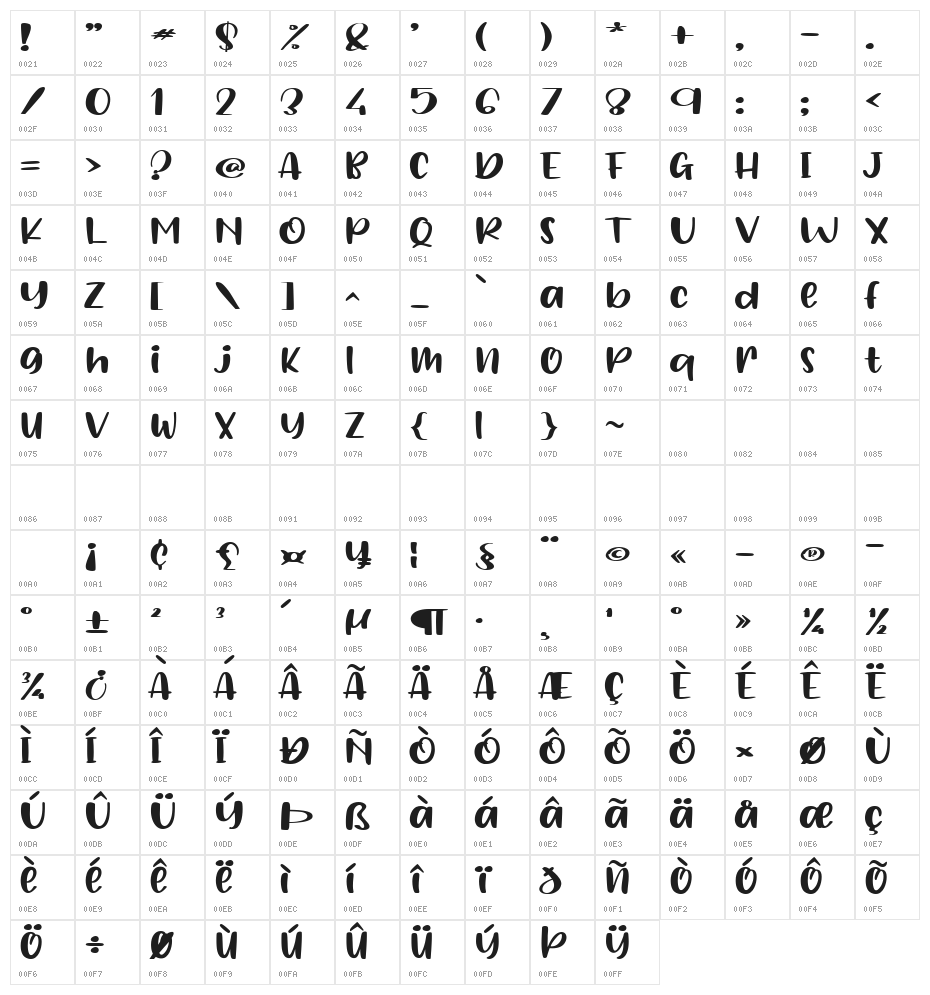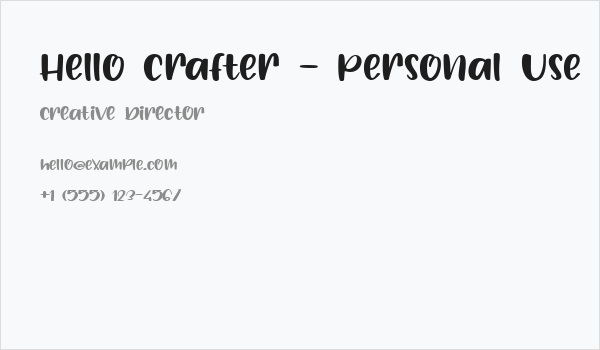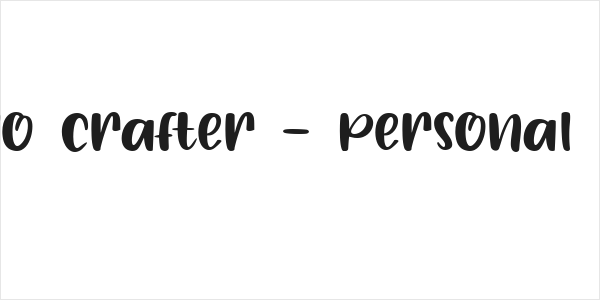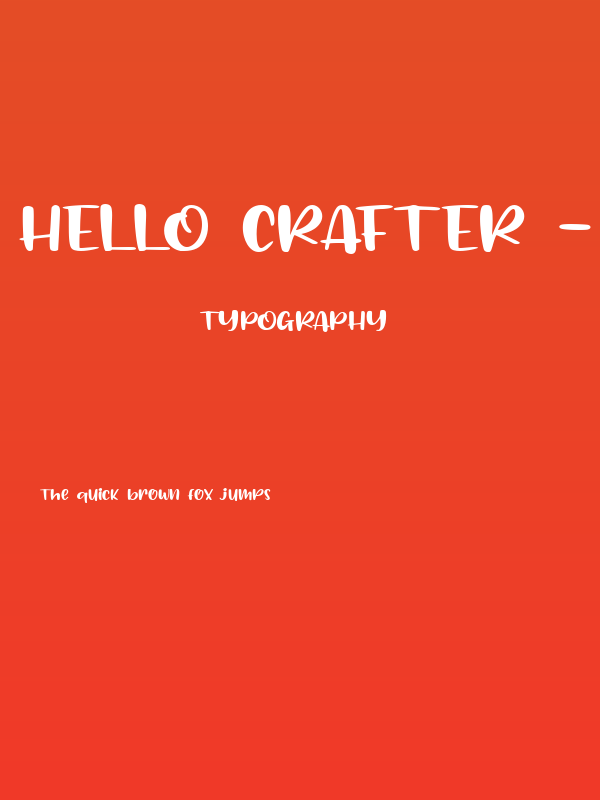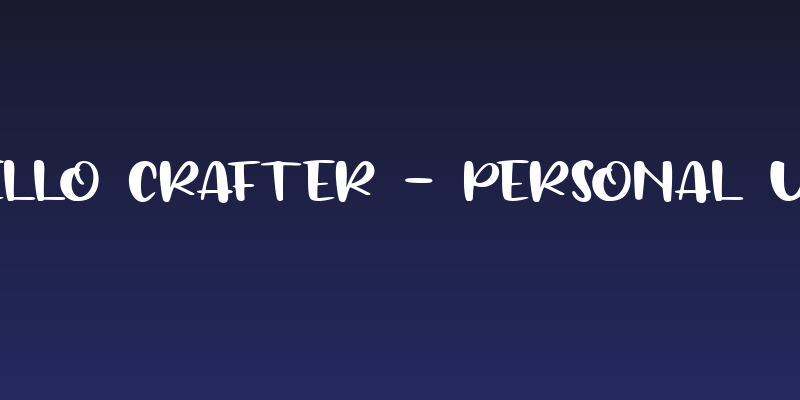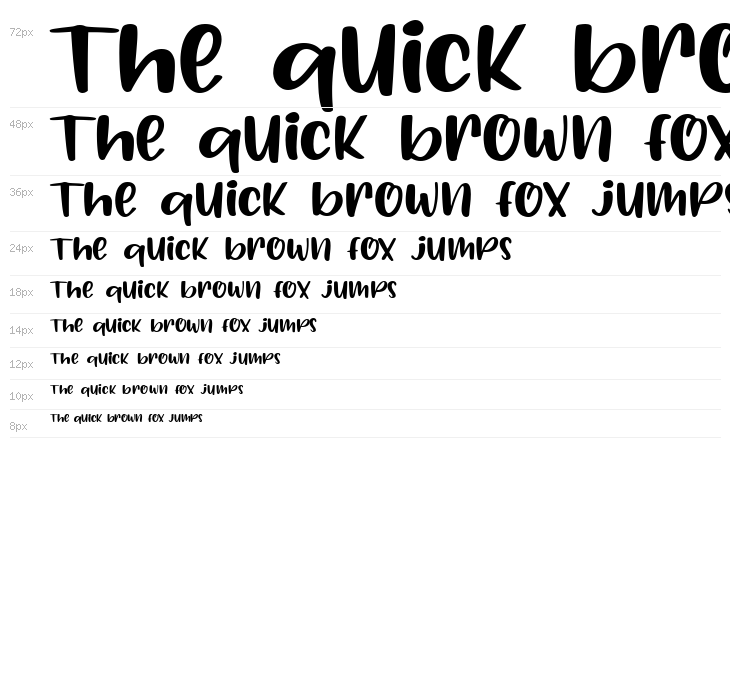
Hello Crafter - Personal Use Font
Hello Crafter - Personal Use Description
This font features a playful and bold script style with a handwritten feel. The letters are rounded and have a consistent thickness, giving it a friendly and approachable appearance. The uppercase characters are slightly larger and more pronounced, while the lowercase letters maintain a smooth flow, enhancing readability. Numbers and special characters are designed to match the overall style, ensuring cohesion across different text elements. This font's unique charm makes it suitable for creative and informal projects.
| Proposed Projects | Ideal for greeting cards, invitations, branding, and social media graphics. |